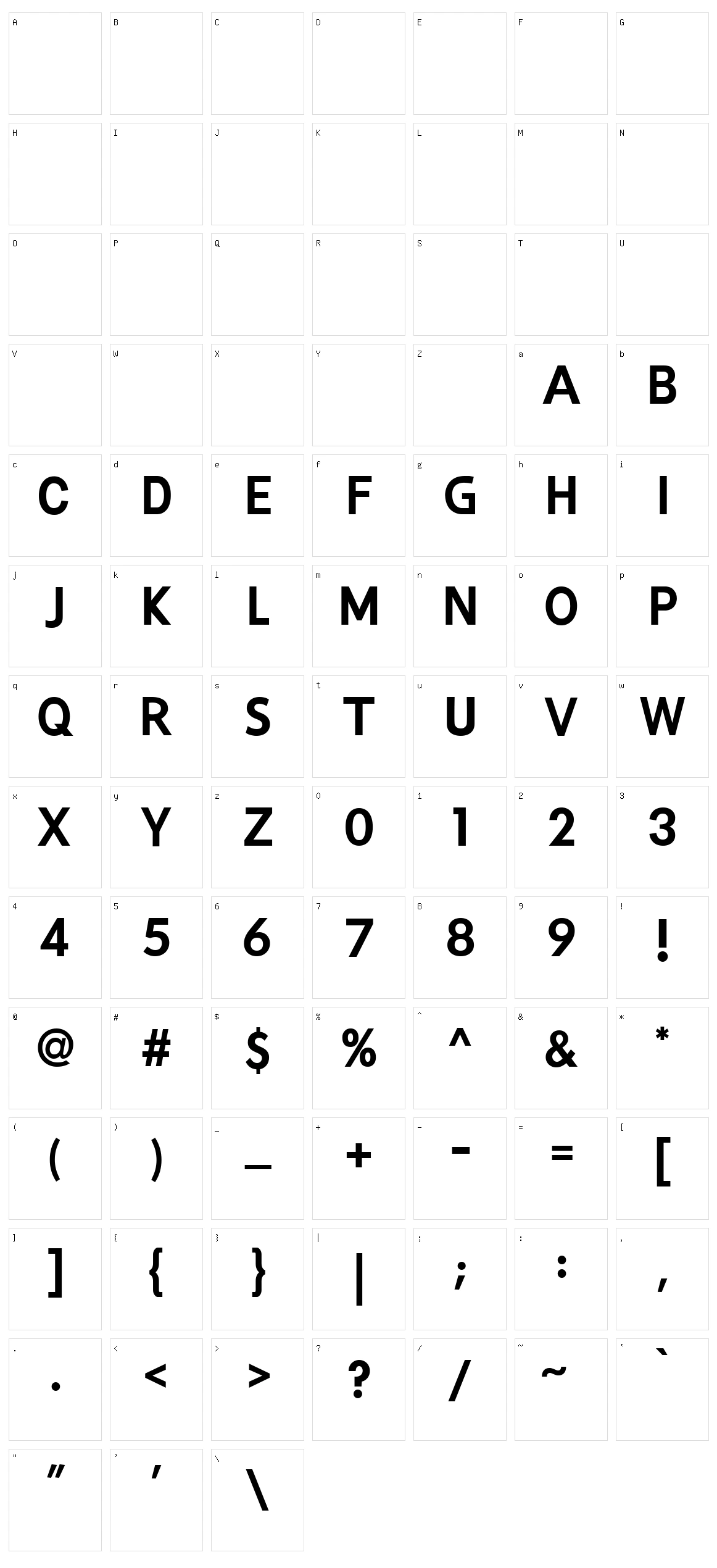
The free font Vertexio is carefully designed by Dhvanil Patel, showcasing a thoughtful balance of creativity and usability and falls under the Sans serif font style. When you download the ZIP file, it contains only 16.68 KB of font files, making it lightweight and quick to download. Please review the license details below to understand permitted usage and distribution rights. If license information is not available, we recommend using this font for personal projects only or contacting the author directly for commercial usage permissions.